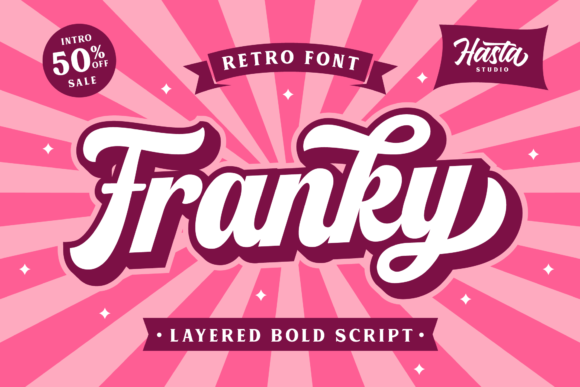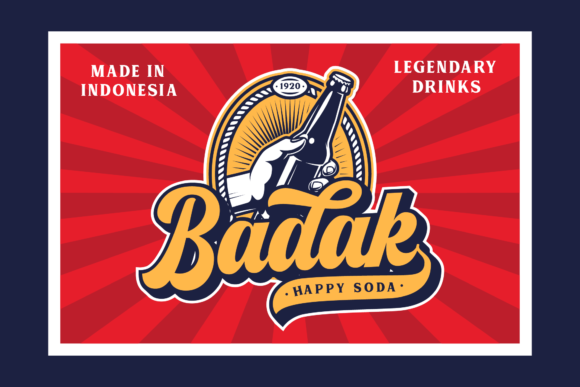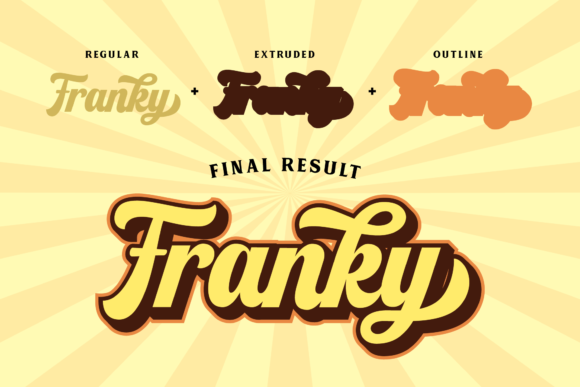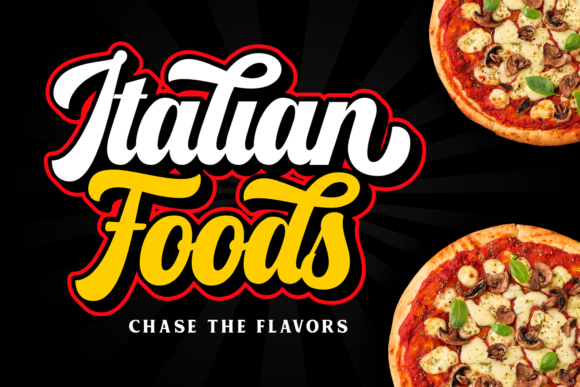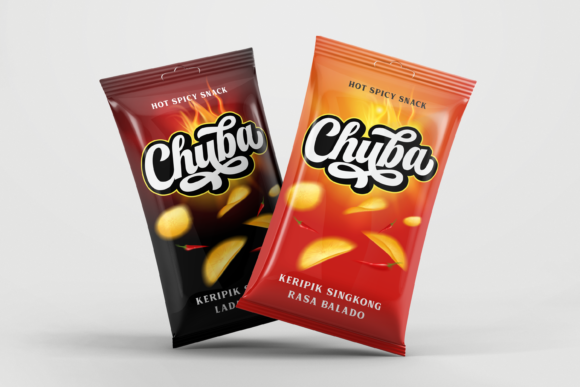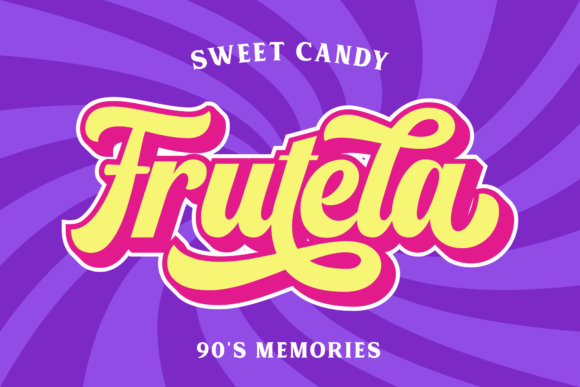
Franky Font
Franky is a retro, bold handwritten font with an 80’s style. This font is PUA encoded which means you can access all of the glyphs and swashes with ease! It features a varying baseline, smooth lines, gorgeous glyphs and stunning alternates. Fall in love with Italian Foods’ incredibly versatile style and use it to your favorite design projects!